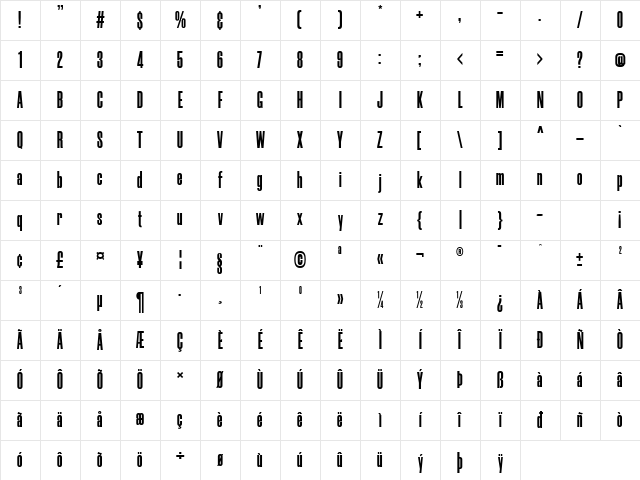
Morganite ExtraBold
Foundry: Rajesh Rajput
Designer: Rajesh Rajput
Design Context for Morganite
Morganite is a composed and adaptable typeface that performs quietly and consistently across a wide range of design contexts. Its bold stroke weight gives it real presence on the page.